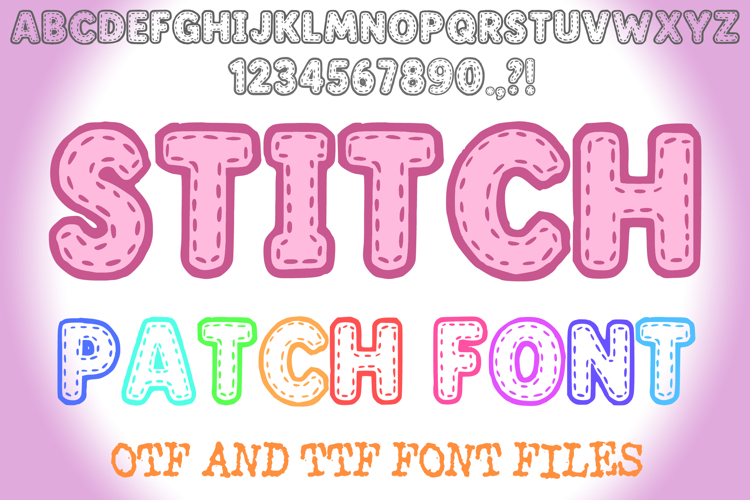
The Embroidery Stitch Font brings the cozy, tactile feel of hand-stitched embroidery to your digital projects. Each letter is made up of textured thread-style lines that mimic real stitches, adding crafty detail and playful charm. Perfect for sewing-themed graphics, craft blogs, children’s books, DIY branding, or handmade product packaging, this display font delivers warmth and personality with every character.
A sewing style font where you can create your own words and colour them to your vision!